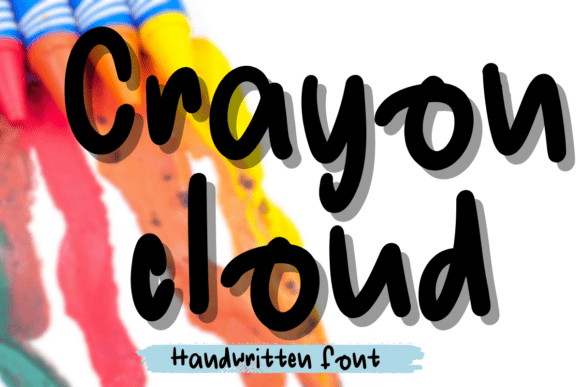
Where Creativity Meets Whimsy: Introducing Crayon Cloud Font
Have you ever sat with a box of crayons and a blank piece of paper, watching as your child’s imagination brings the world to life with vibrant colors and playful doodles? It’s moments like these that spark the creativity and wonder that we often lose as adults. As designers, we’re always on the lookout for ways to tap into that same sense of playfulness and inject it into our work.
That’s where Crayon Cloud Font comes in – a delightful, handwritten font that captures the essence of childhood creativity. With its rounded, friendly strokes, this font is perfect for kids’ projects, school printables, digital planners, logos, greeting cards, and more. What makes Crayon Cloud Font truly valuable is its ability to transcend language barriers, supporting multiple languages including Spanish, Italian, French, German, and Portuguese.
Crayon Cloud Font Key Features
- Unique Characteristics: Crayon Cloud Font features a unique, hand-drawn design with subtle texture and imperfections, giving it a distinctive and whimsical feel.
- Legibility: Despite its playful appearance, the font is designed to be highly legible, making it suitable for a wide range of applications, from body text to display headings.
- Language Support: Crayon Cloud Font supports a wide range of languages, including Latin, Cyrillic, and Greek scripts, making it a versatile choice for multilingual projects.
Crayon Cloud Font Review
Overall, I was excited to dive into the Crayon Cloud Font and see what it had to offer. Here’s my honest take.
- Unique aesthetic: The font’s whimsical, dreamy quality is perfect for projects that need a touch of magic.
- High-resolution images: The font’s vector format ensures crisp, clear lines even at large sizes.
- Extensive character set: The font includes a wide range of characters, including special symbols and international characters.
- Legibility at small sizes: While the font looks great at larger sizes, it can become difficult to read at smaller sizes.
- Limited font weights: The font only includes a few font weights, which may limit its versatility.
- Not suitable for body text: The font’s playful quality makes it better suited for headings and titles rather than body text.
Overall, I think the Crayon Cloud Font is a great choice for projects that need a unique, eye-catching touch. While it has some limitations, its strengths make it a valuable addition to any designer’s toolkit.
Tips for Getting the Most Out of Crayon Cloud Font
For a more authentic look, use the Crayon Cloud Font with a distressed or worn effect. Experiment with different color combinations and layering techniques to achieve a unique, eye-catching design.
The Crayon Cloud Font is ideal for:
- Handmade or DIY project designs
- Whimsical or playful branding
- Artistic or creative projects
Alternatives to Crayon Cloud Font
Pacifico is a beautiful, modern script font that works well for designs that need a touch of elegance. It’s perfect for wedding invitations, branding, and other creative projects. Unlike Crayon Cloud Font, Pacifico has a more refined and sophisticated feel, making it suitable for a wider range of applications.
Great Vibes is a modern script font that’s ideal for designs that require a sense of fun and playfulness. It’s great for creating a casual, relaxed atmosphere, making it perfect for social media graphics, blog posts, and other digital content. Compared to Crayon Cloud Font, Great Vibes has a more dynamic and energetic feel.
Carolyna Pro is a elegant, modern script font that’s perfect for designs that need a touch of sophistication and glamour. It’s ideal for high-end branding, luxury products, and other projects that require a sense of refinement. Unlike Crayon Cloud Font, Carolyna Pro has a more polished and refined feel, making it suitable for a wide range of high-end applications.